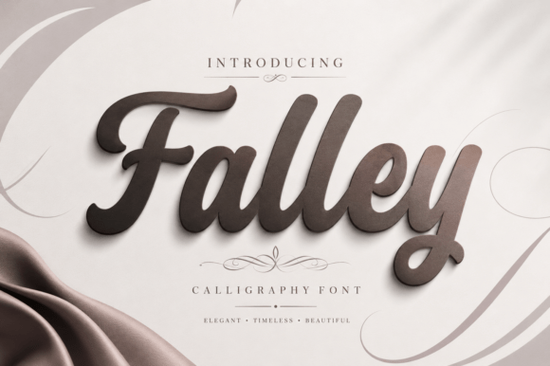
If you're searching for a script font that balances elegance with readability, Falley Font might be exactly what you need. This contemporary calligraphy script combines smooth, rounded strokes with stylish swashes, giving it a warm and romantic feel without sacrificing legibility. Whether you're designing wedding invitations, branding a boutique, or creating social media graphics, Falley brings a handcrafted charm that works well for both digital and print projects.
What makes Falley different from other script fonts?
Many script fonts lean heavily into ornate flourishes that can become hard to read at smaller sizes. Falley strikes a smarter balance. Its thick and gentle strokes create a luxurious handwritten look, but each letterform remains clear and distinct. The slanted, flowing shapes feel natural like real calligraphy done with a flexible nib yet they are consistent enough for professional use. This mix of soft curves and sturdy structure makes Falley stand out, especially for designs where you need both personality and clarity.
Where can you use Falley Font in your projects?
Falley fits a wide range of creative work. Here are some common applications where it works particularly well:
- Wedding invitations and stationery – its romantic, elegant mood is a natural fit for save-the-dates, ceremony programs, and thank-you notes.
- Logos and branding – the font’s fluid lines give a sophisticated yet approachable identity for beauty salons, bakeries, or lifestyle bloggers.
- Social media graphics – quotes and announcements pop with Falley’s warm tone, especially on Instagram or Pinterest.
- Packaging and product labels – a handwritten script adds a personal touch to candles, skincare, or artisan food products.
- Fashion and lifestyle quotes – the stylish swashes lend themselves well to editorial designs and apparel prints.
Because Falley keeps readability in mind, you can use it for longer text blocks like a short paragraph on a flyer without losing the handcrafted feel.
How does Falley compare to other popular script fonts?
If you’re exploring script options, you might also come across fonts like Highlight, which has a more dramatic contrast between thick and thin strokes. Bromello offers a bouncier, casual style, while Goldray Club brings a vintage, art-deco influence. For something playful and modern, Charming is a solid choice. And if you’re after a delicate, fairy-tale look, Chanson Reverie uses fine, whimsical strokes.
Compared to these, Falley sits right in the middle elegant but not too ornate, readable but not stiff. It’s a versatile workhorse for anyone who needs a single script font that can do both formal invitations and casual branding.
How to pair Falley Font with other typefaces
Since Falley is a script font, it pairs best with clean, neutral sans serifs or simple serifs. Avoid combining it with another decorative script the result can look messy. Instead, try these pairings:
- For a modern look: use a thin geometric sans serif like Montserrat or Raleway for body text, with Falley for headlines.
- For a classic feel: pair it with a subtle serif like Playfair Display or Lora. Let Falley handle the main message while the serif supports with details.
- For social media quotes: keep the rest of the design minimal. Use Falley alone with plenty of white space around it.
When in doubt, less is more. Falley’s ornate swashes and curves already carry a lot of visual weight, so your supporting font should stay in the background.
Practical tips for using Falley in your designs
Getting the best out of Falley doesn’t require advanced skills. Here are a few simple guidelines:
- Watch the swashes. Use them sparingly maybe only on the first letter or a key word. Overusing swashes can make text hard to read.
- Adjust tracking (letter spacing). In all caps or large sizes, a little extra space between letters helps legibility. In body text, keep tracking tight.
- Test at small sizes. Print out a sample or view it on a phone screen. If the flourishes start to blend, scale up or simplify.
- Stick to two font families per project. Falley is strong enough to carry the personality; you don’t need three or four different fonts.
Final checklist before you buy Falley Font
Here’s a quick rundown to make sure this font fits your needs:
- ☐ You want a script that is both elegant and readable.
- ☐ You need it for wedding, branding, or social media projects.
- ☐ You prefer a handcrafted, warm style over perfectly geometric shapes.
If those points match your project, Falley Font is a solid pick. And if you later want to expand your collection, keep the other script fonts I mentioned in mind they each bring a different flavor that might come in handy for future designs.